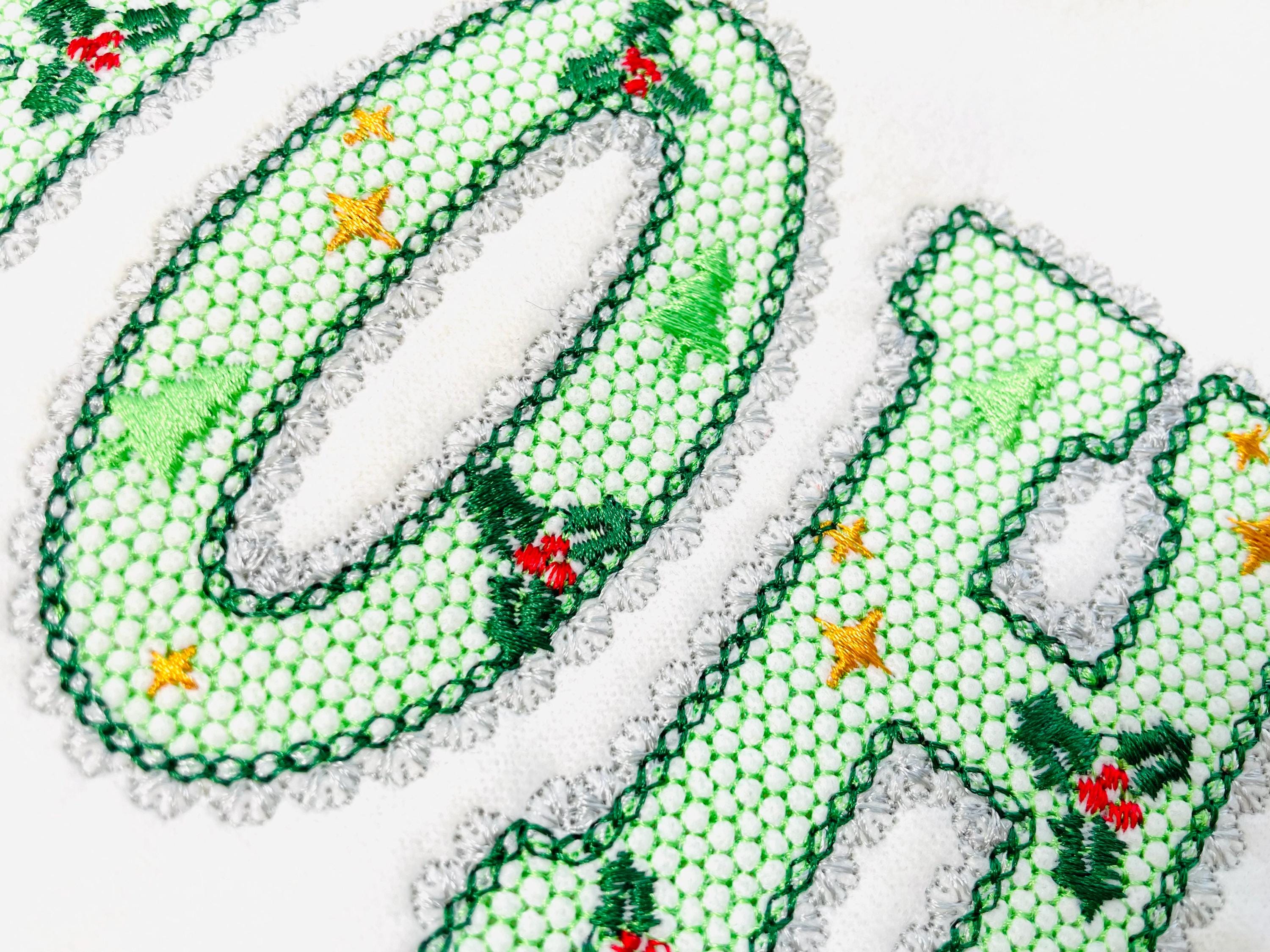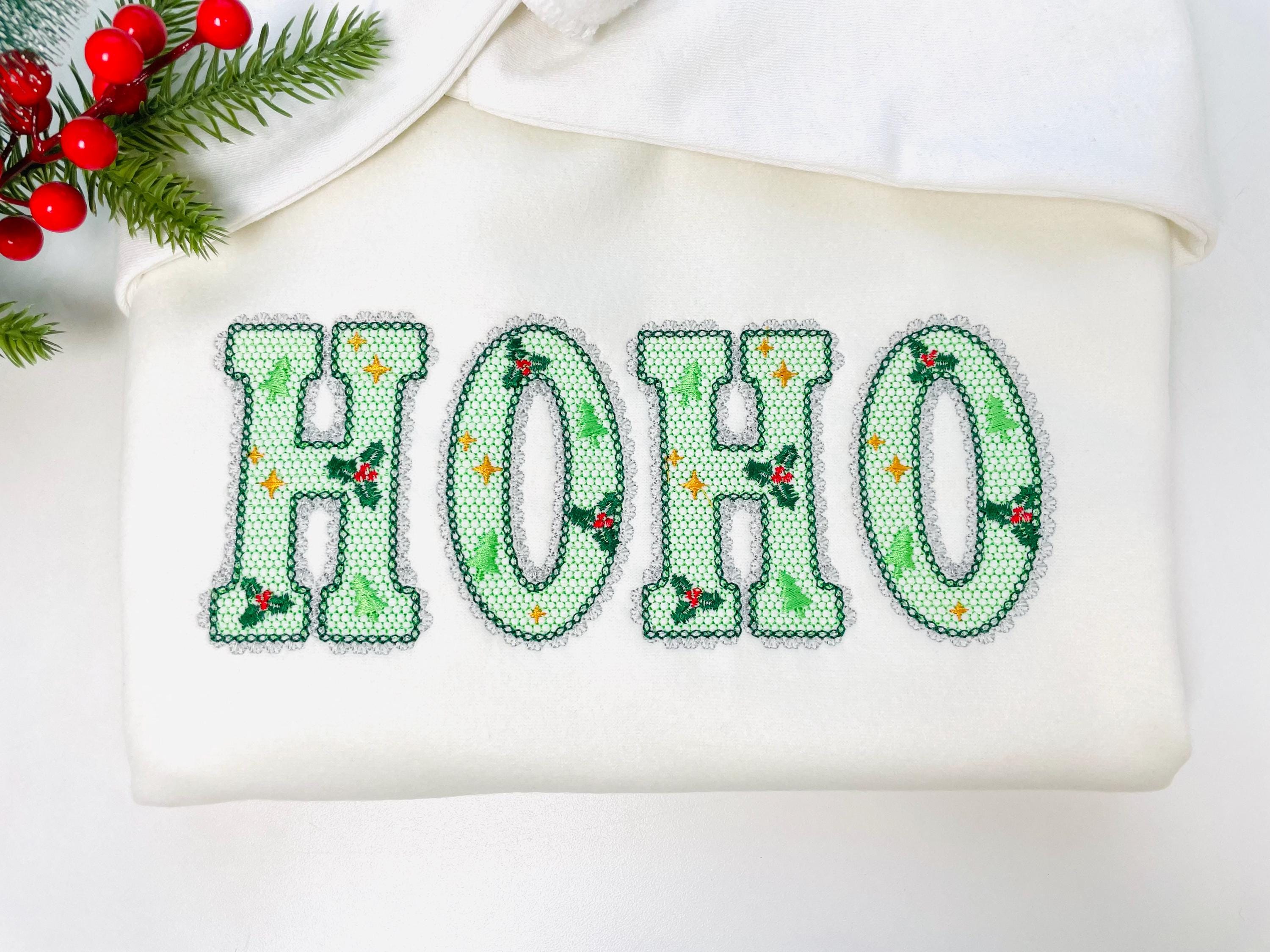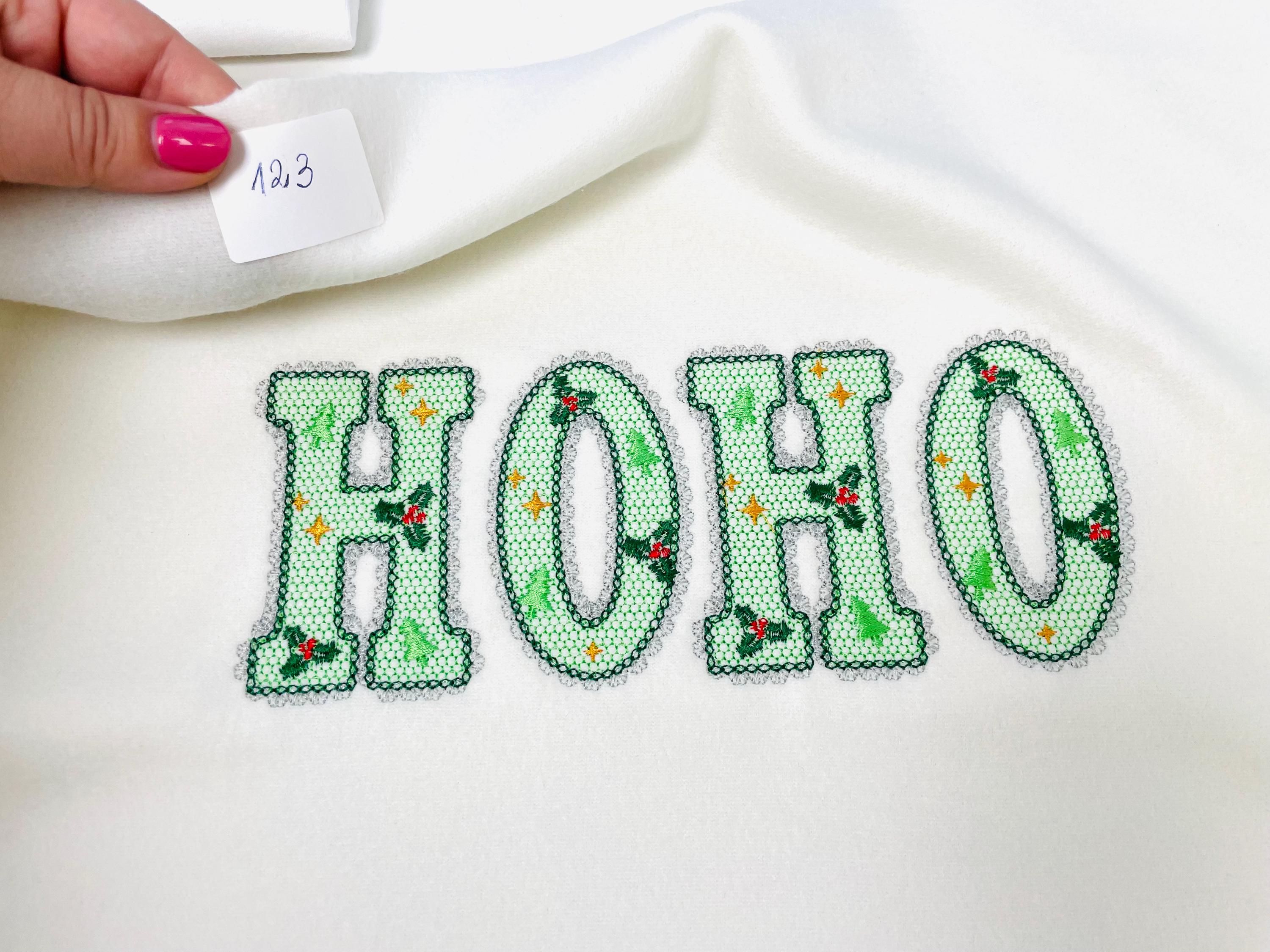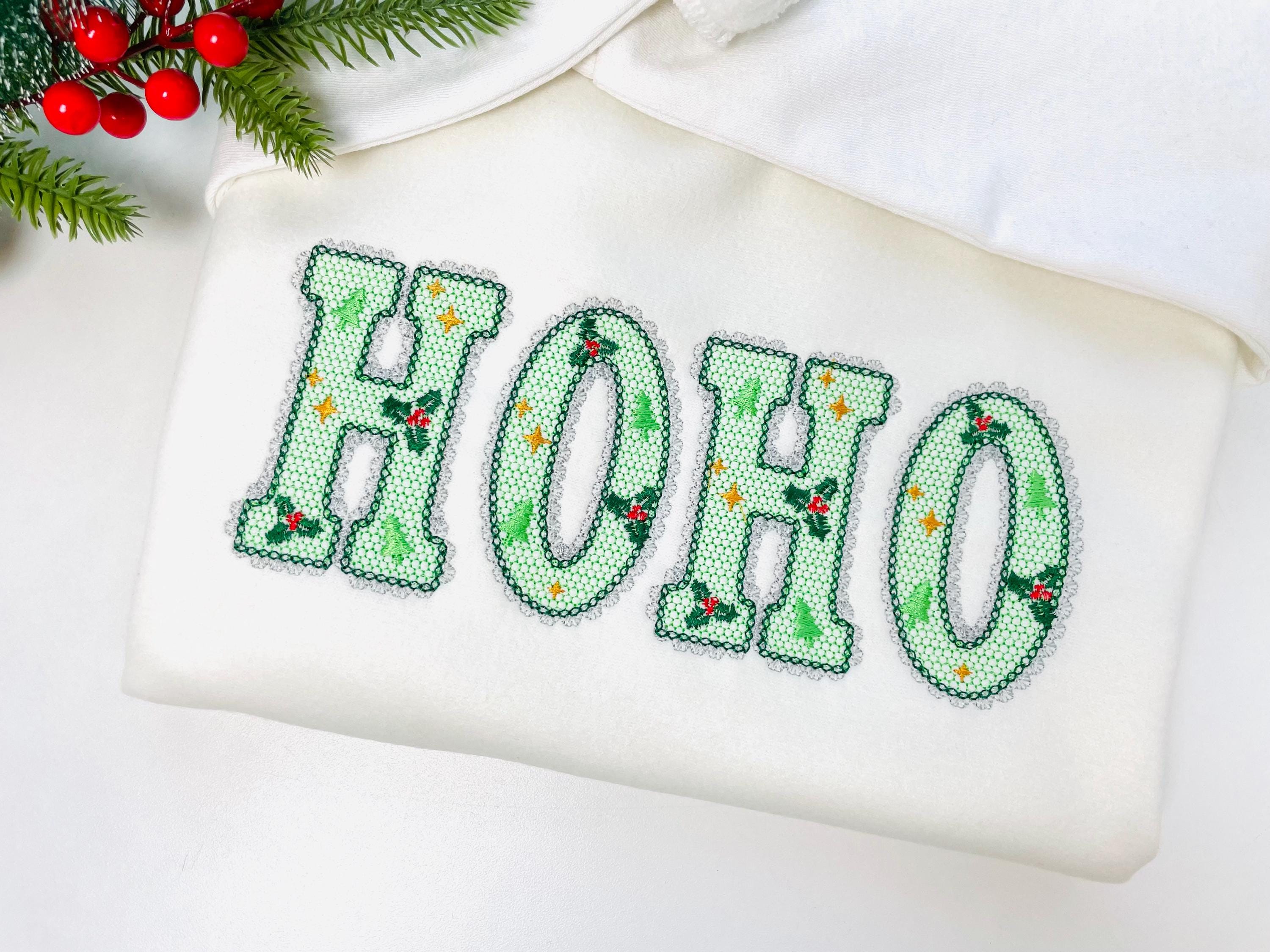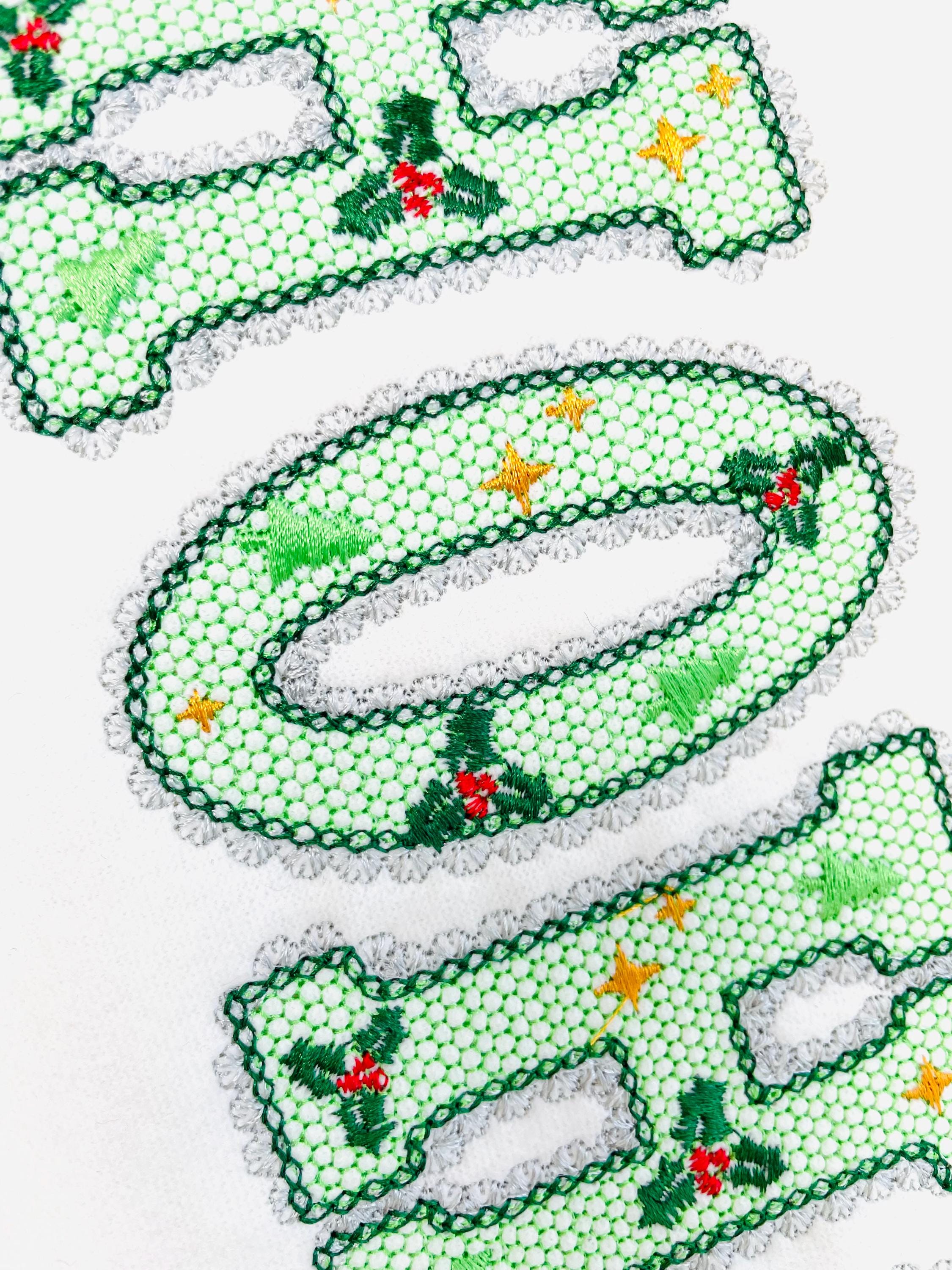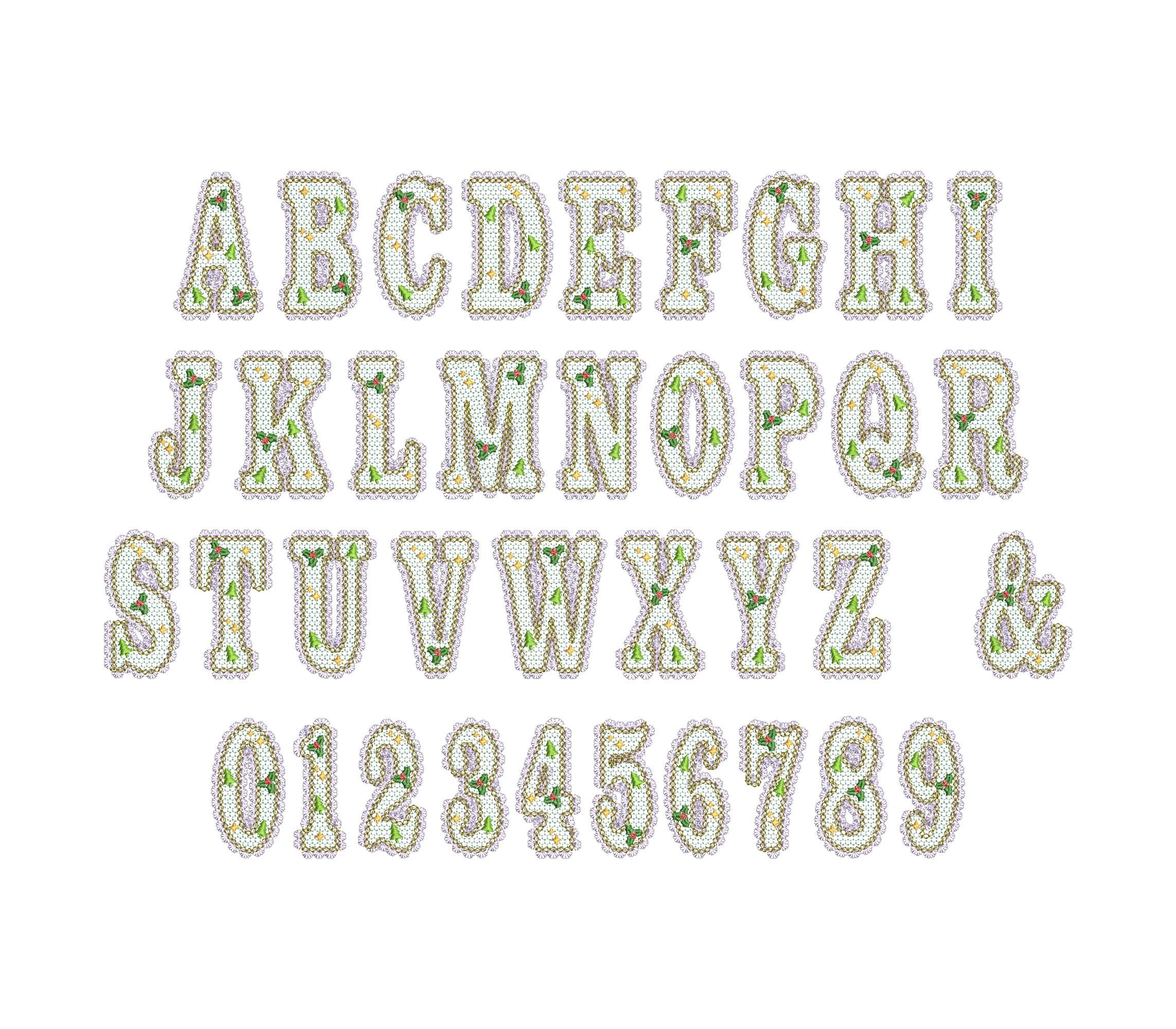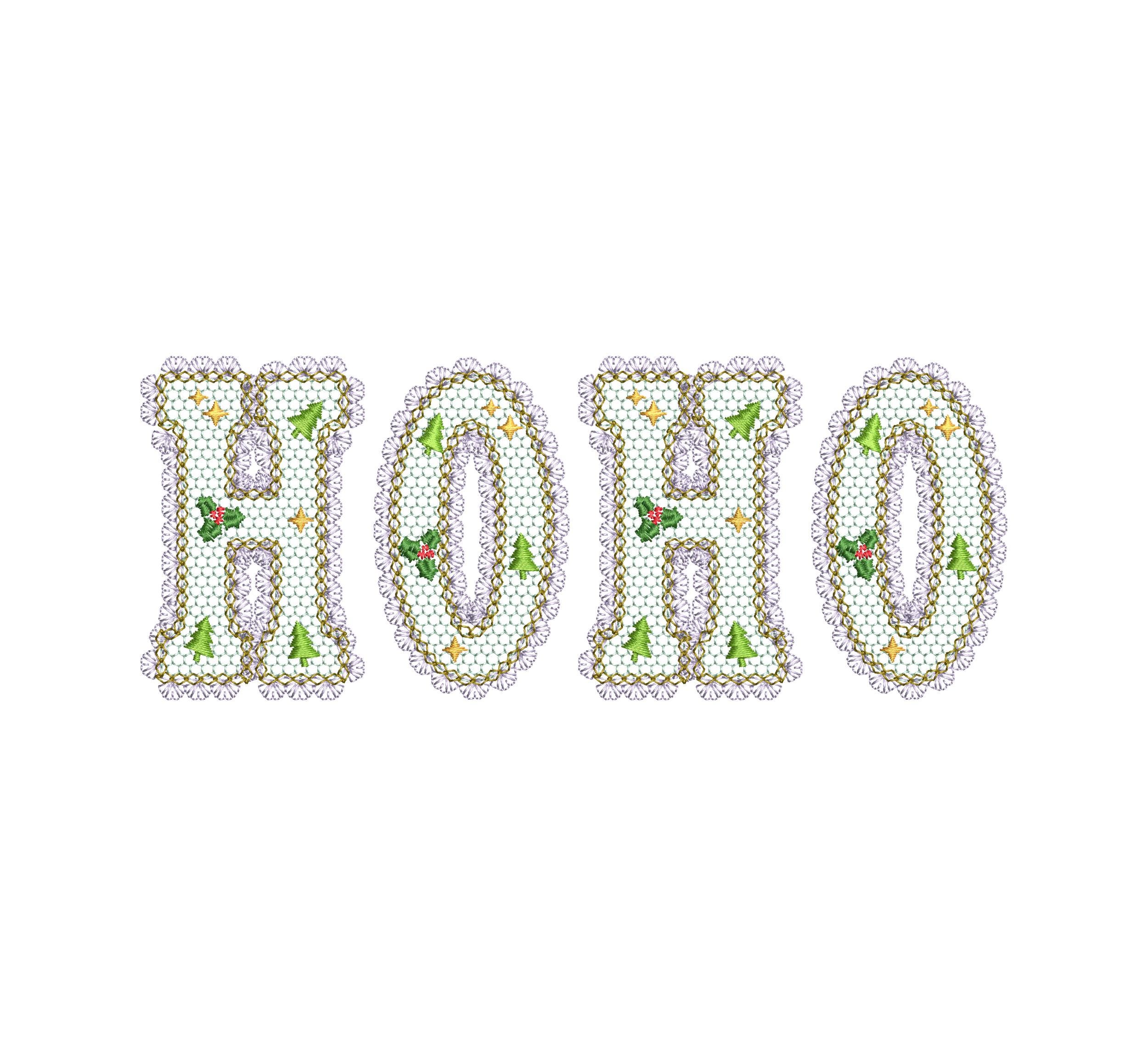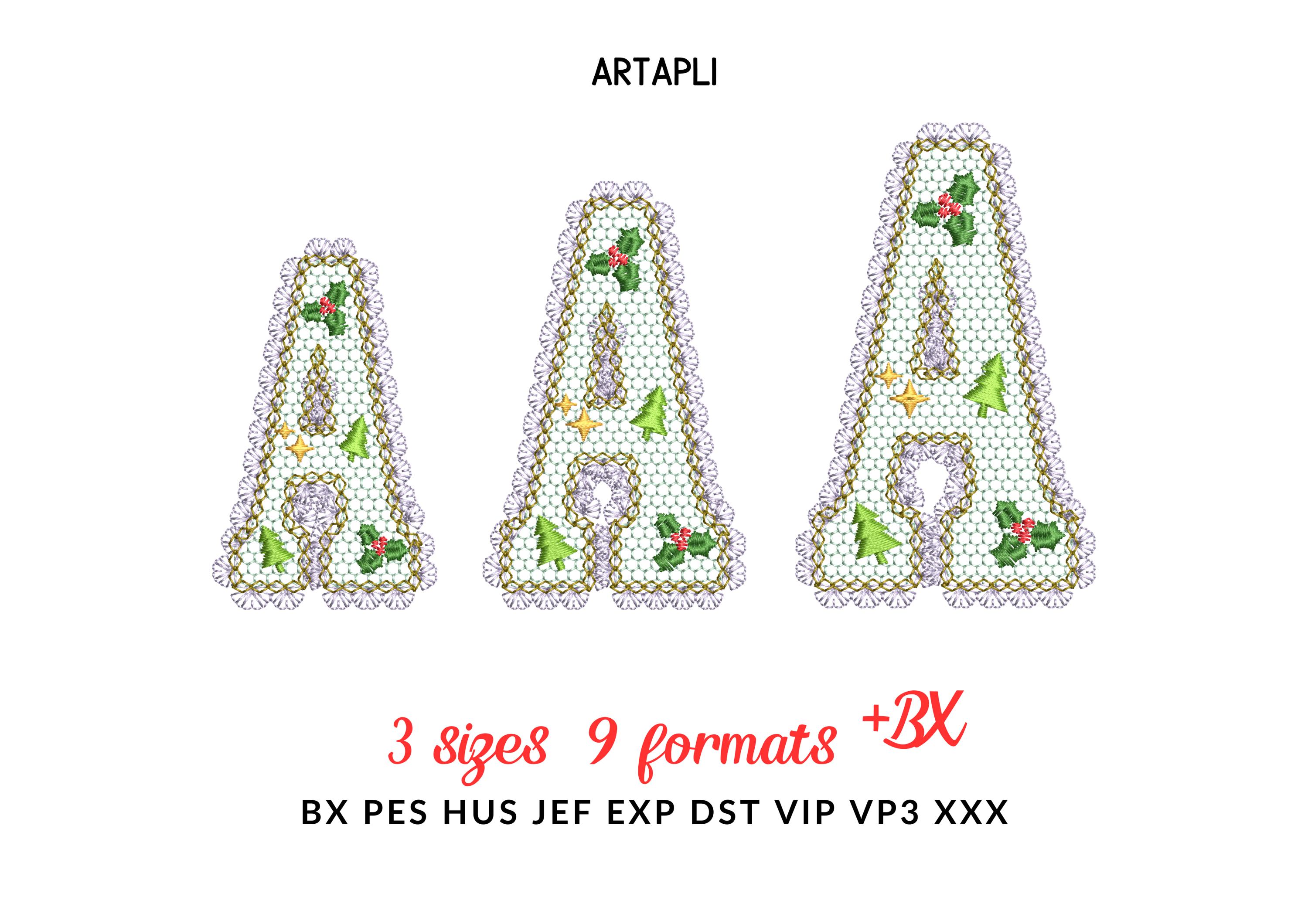
Lace Edge Christmas Floral FONT lace patterned Alphabet Monogram Holiday Festive machine embroidery designs sizes 2.9 up to 3.7 inch, BX
Lace pattern and lace edge are part of the design. The background fabric looks through. Stunning effect!